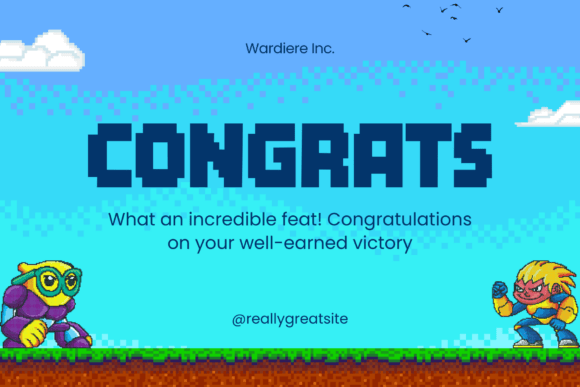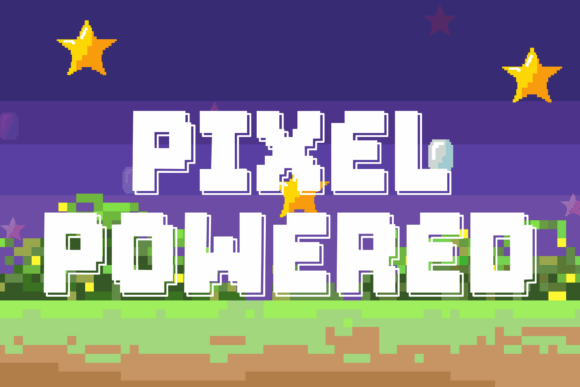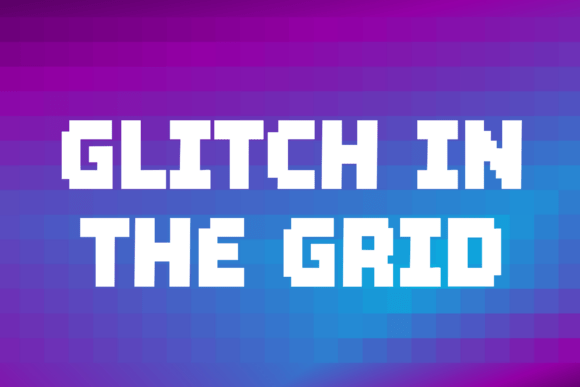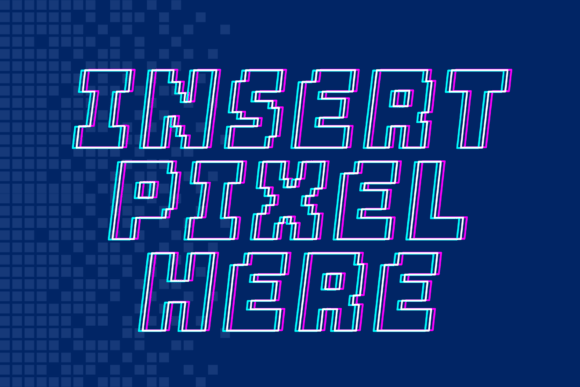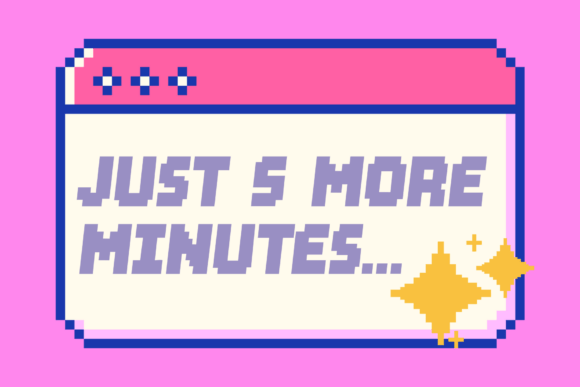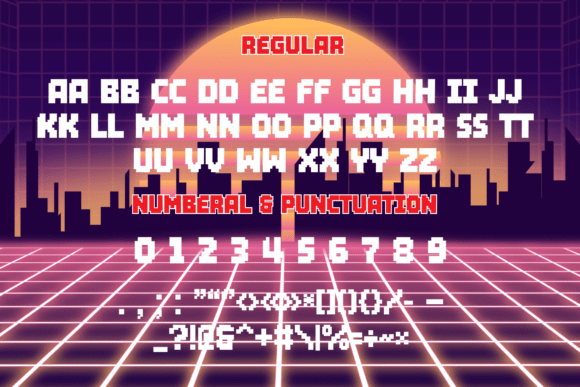
The Perfect Pixelated Touch: Unleashing the Power of Brick Byte Font
Do you remember the thrill of creating your own pixel art masterpiece as a child? The satisfaction of crafting each individual block to form a vibrant, 8-bit world was addictive, and it’s a feeling that many designers still yearn for today.
For those who want to tap into this nostalgic aesthetic, the Brick Byte Font is here to deliver. This heavy, square-cut display font is inspired by the visual charm of voxel art and sandbox games, bringing a sense of structure and fun to any digital project. Whether you’re crafting a game UI or designing bold brand visuals, Brick Byte Font is the perfect tool to add a retro flair and make your work stand out.
With its chunky, brick-like characters and pixel-perfect edge, the Brick Byte Font is a valuable asset for designers looking to inject some retro charm into their projects. Its versatility and impact make it a must-have for anyone seeking to add a unique touch to their digital creations.
Brick Byte Font Key Features
- Font Size: The Brick Byte Font is designed to be used at a minimum size of 12 points, but it can be scaled up to larger sizes for use in various applications.
- Resolution: The font is optimized for use at resolutions of 72 dpi (dots per inch), making it suitable for digital applications such as websites, e-books, and mobile devices.
- Unique Characteristics: The Brick Byte Font features a unique, pixelated aesthetic that gives it a retro or vintage feel, making it ideal for use in design projects that require a distinctive look.
- Character Set: The font includes a comprehensive character set that supports a wide range of languages, including Latin, Cyrillic, and Greek alphabets.
Brick Byte Font Review
Overall, I’m quite impressed with the Brick Byte Font. It’s a unique and quirky font that’s sure to add some personality to your designs. ✨
- The font’s pixelated aesthetic is perfect for retro-themed designs or projects that require a nostalgic feel.
- The font’s bold and chunky structure makes it easy to read, even at smaller font sizes.
- The font is highly customizable, allowing you to adjust the size, color, and spacing to suit your design needs.
However, there are a few limitations to keep in mind: ⚠️
- The font’s pixelated structure can make it difficult to use for complex or technical text, such as code snippets or academic papers.
- The font’s boldness can also make it overwhelming to use in large quantities, so be sure to balance it with other fonts and design elements.
- The font’s unique aesthetic may not be suitable for all projects or audiences, so be sure to consider your target audience before using it.
Overall, I think the Brick Byte Font is a great addition to any designer’s toolkit. With its unique aesthetic and high level of customizability, it’s perfect for adding some personality to your designs. Just be sure to use it judiciously and consider the limitations mentioned above.
Use the Brick Byte font to add a retro or pixel art touch to your designs.
Pair the font with a bold or distressed texture to enhance the pixel art effect.
Use the font in combination with other pixel art elements, such as icons or graphics, to create a cohesive look.
Use the Brick Byte font for:
Video game-inspired designs
Retro-style posters and flyers
Pixel art-inspired graphics and icons